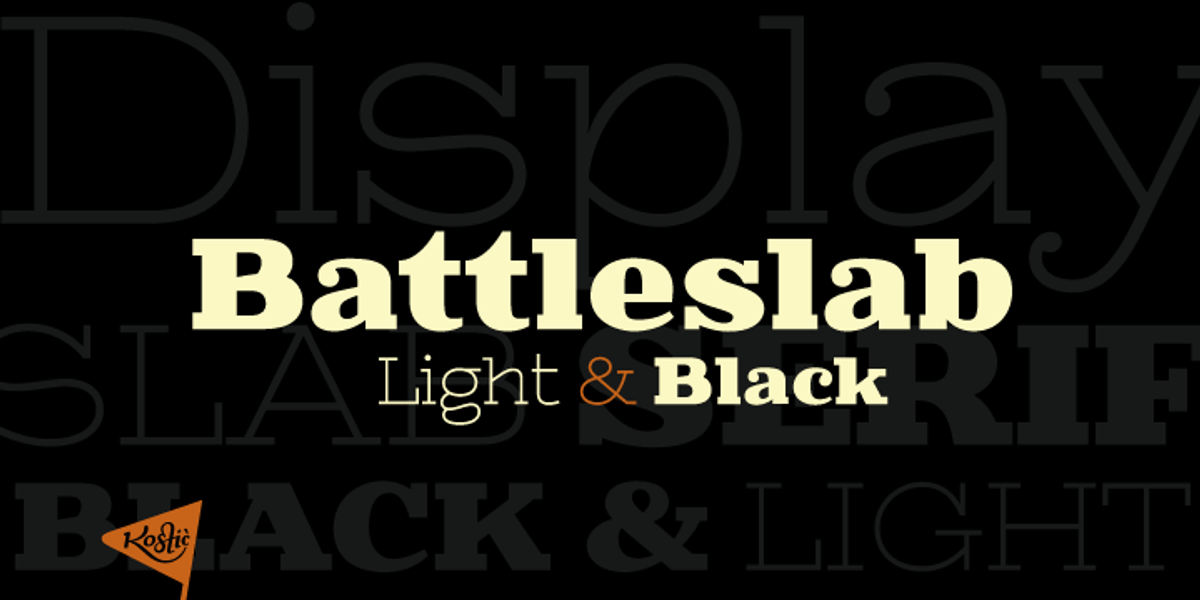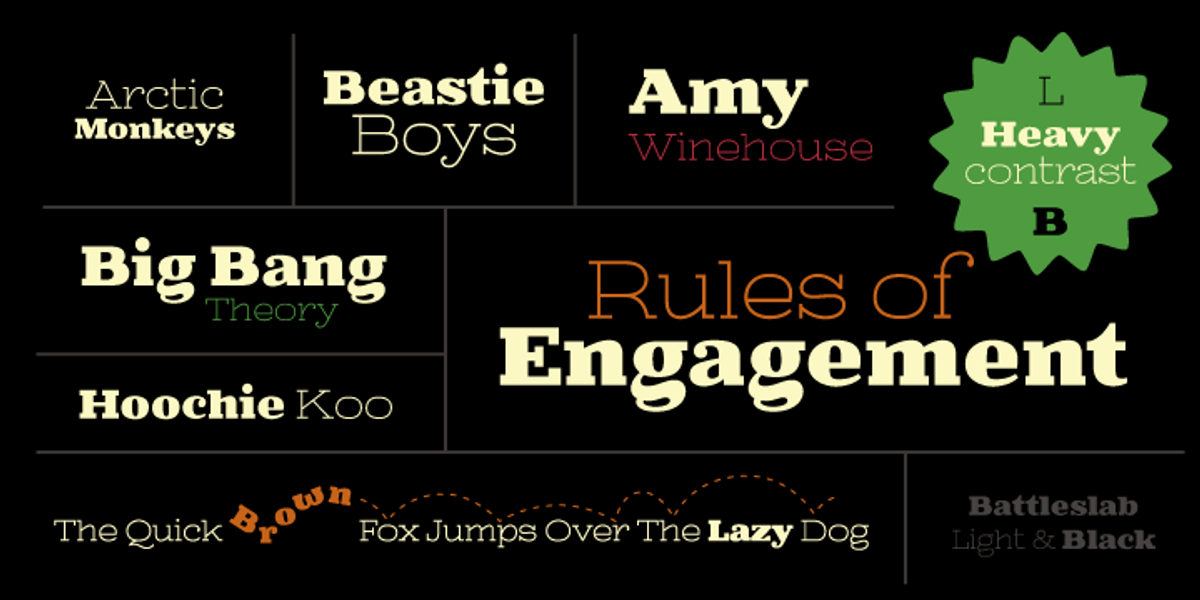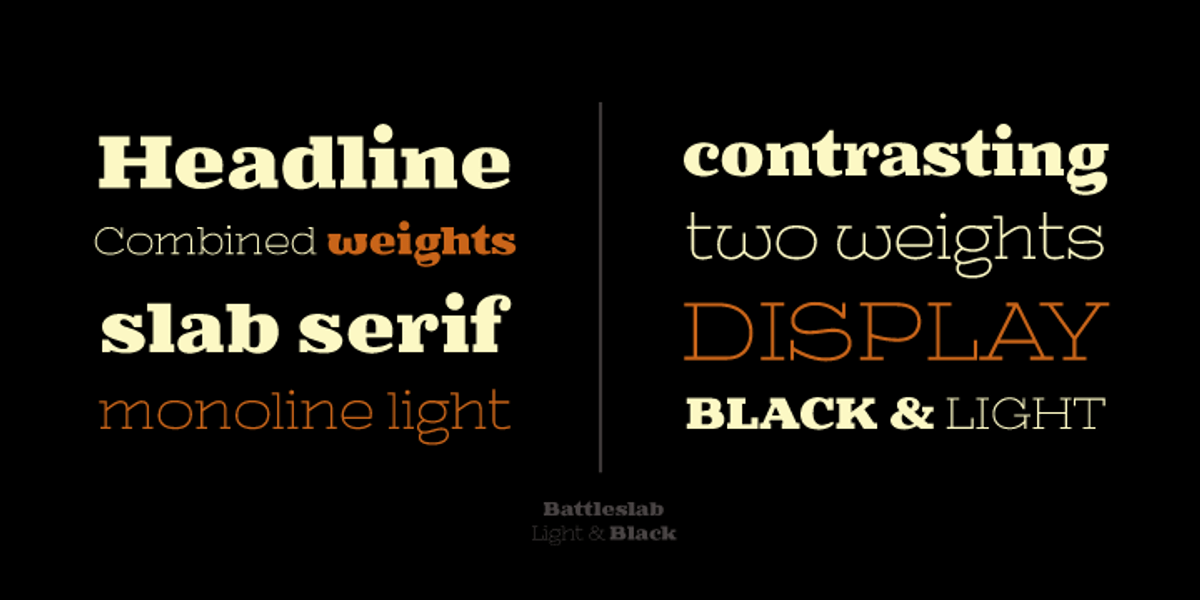
Battleslab
Battleslab is a humanist slab serif font designed specifically for use in display settings like headlines and logos. It features two heavily contrasted weights – a wide light weight and a bold black weight – that are intended to be used together for maximum impact. Battleslab is derived from the Battlefin family, which offers a wider range of styles including italics and ligatures.